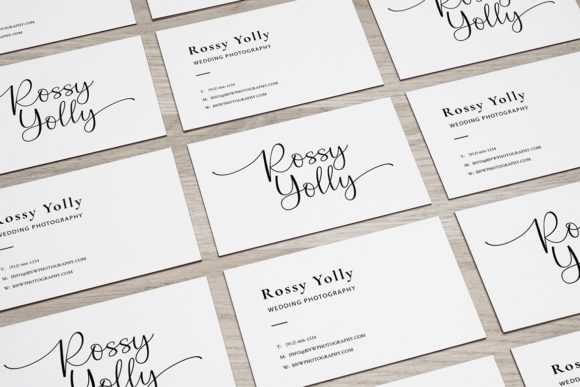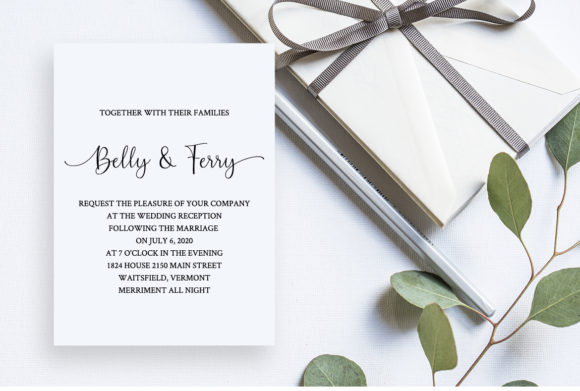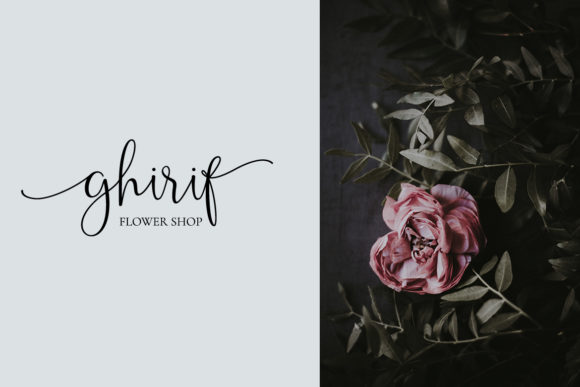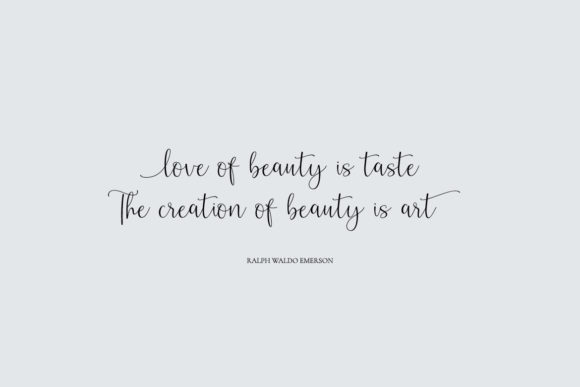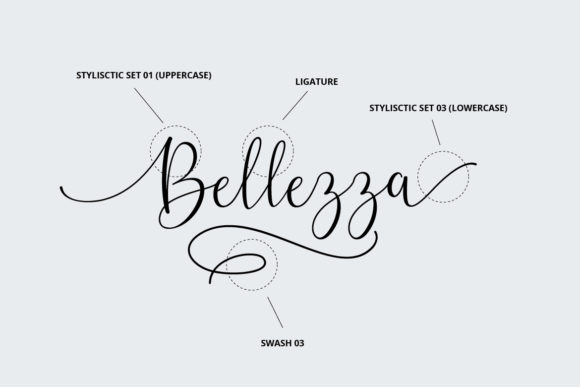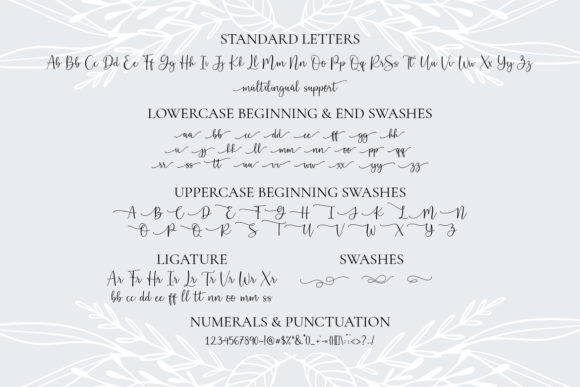
Belly Betty Font
About Belly Betty Font
Belly Betty is a beautiful, modern and new calligraphy font with many alternative styles. It’s an elegant font, perfect for any extraordinary project.